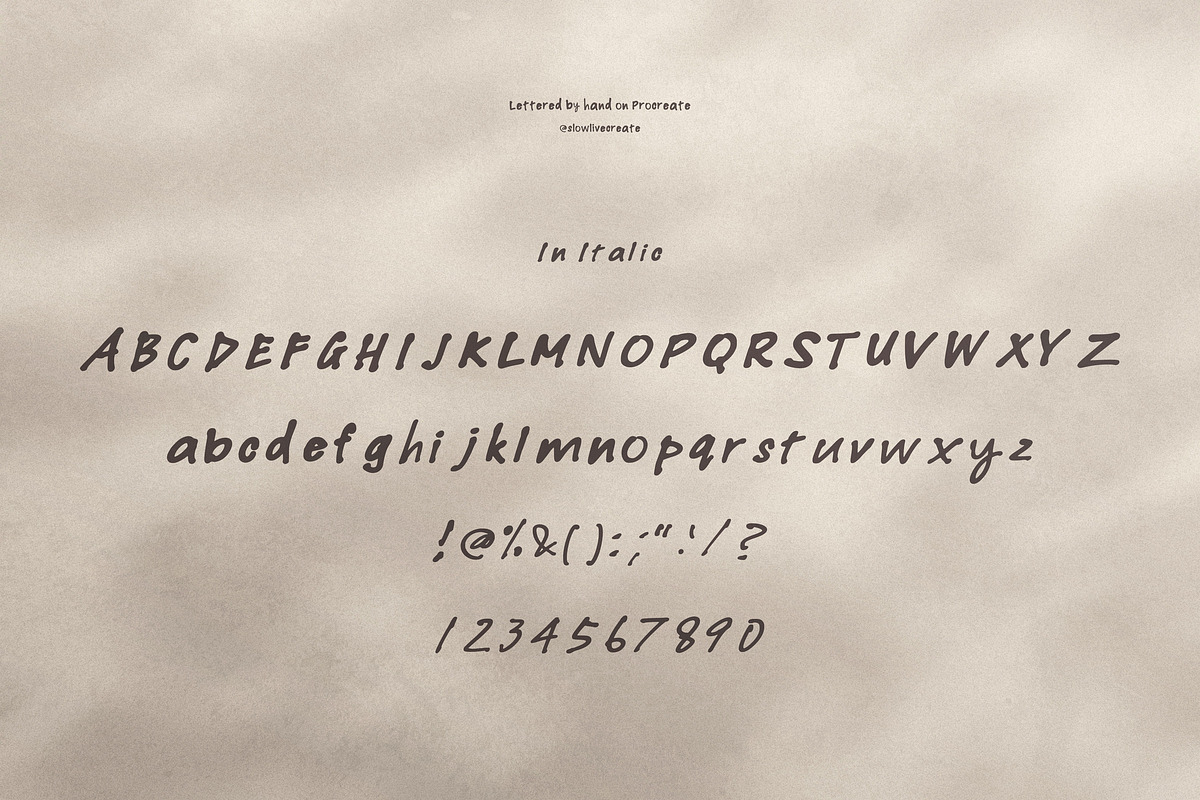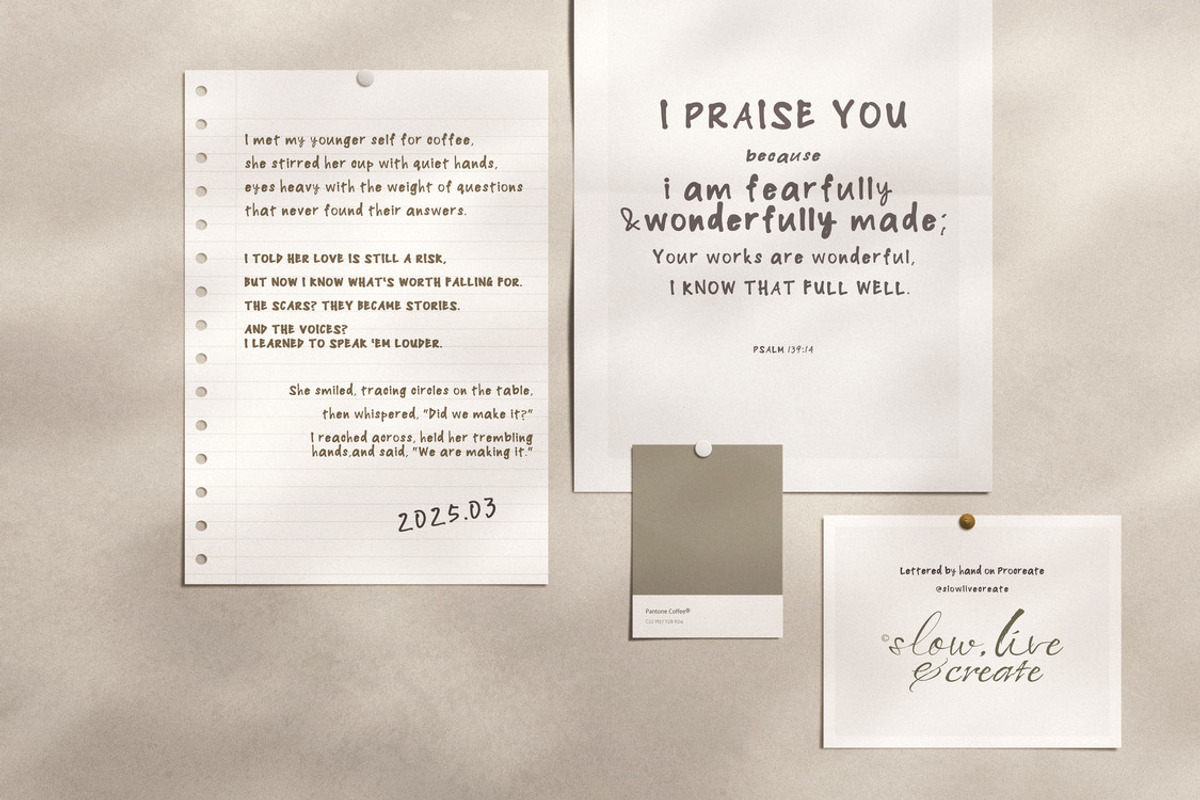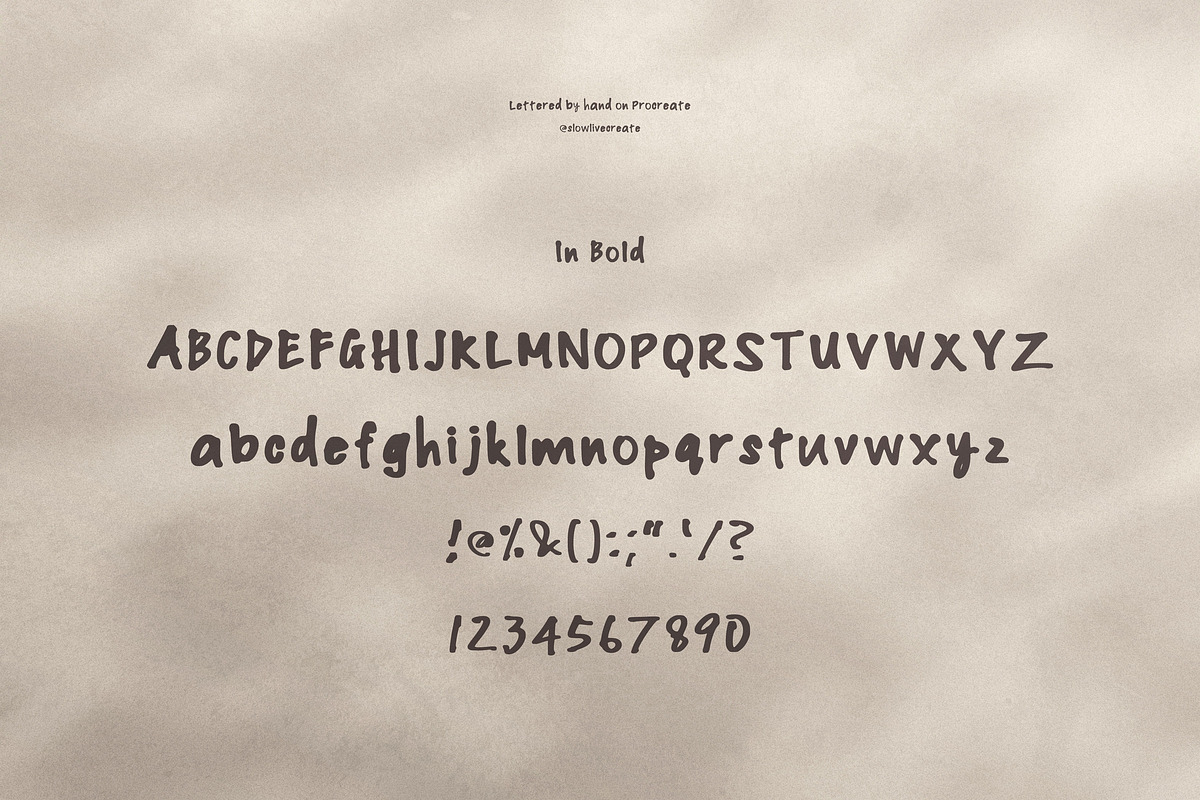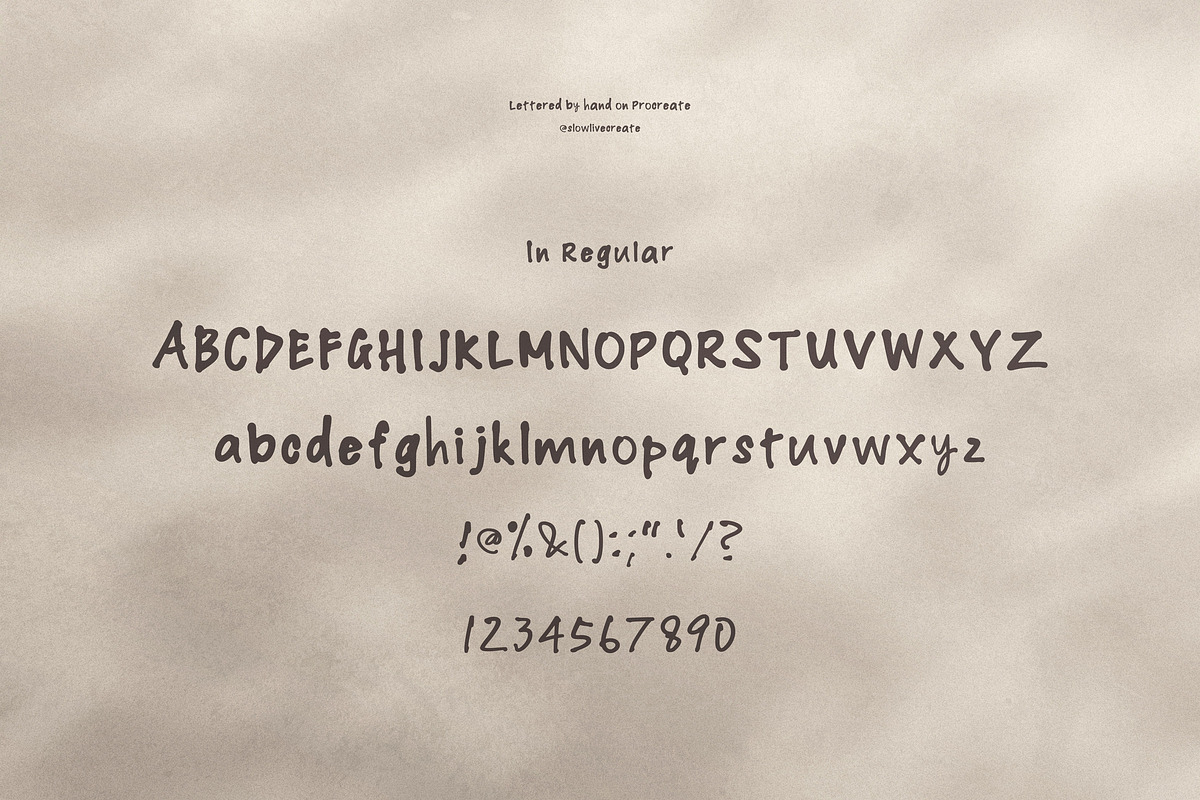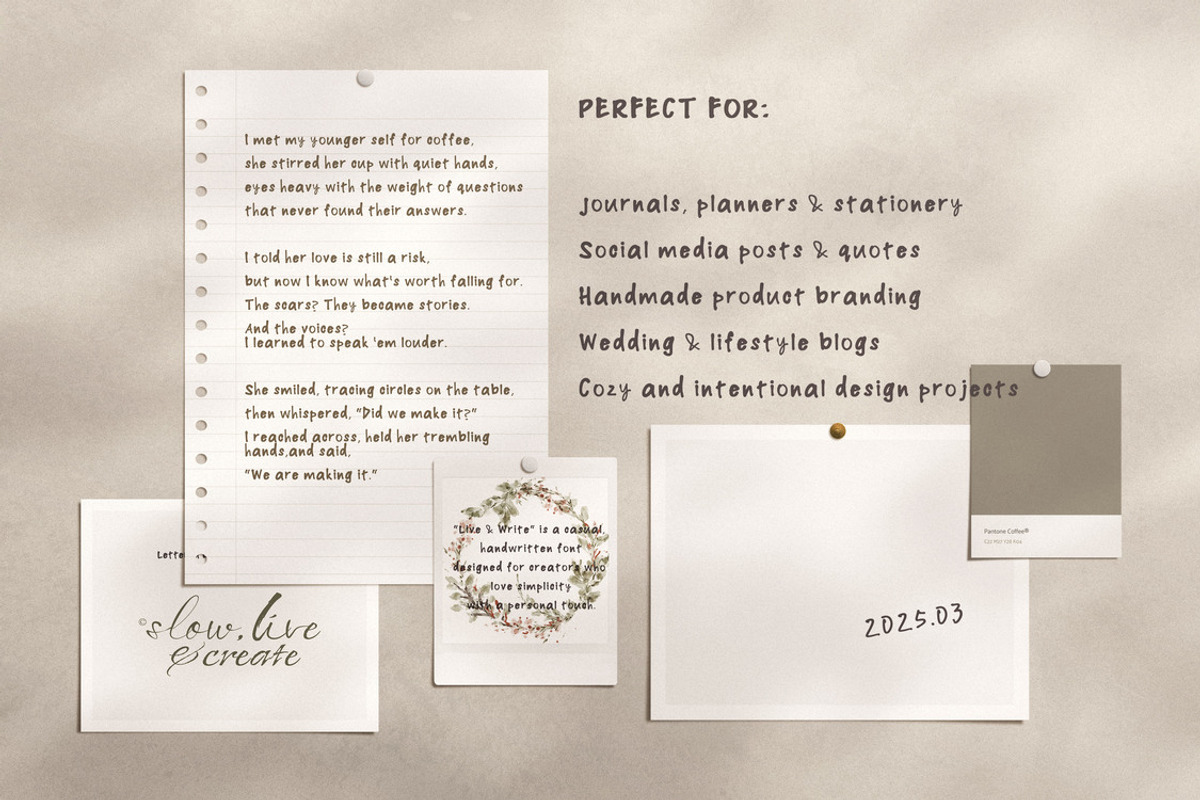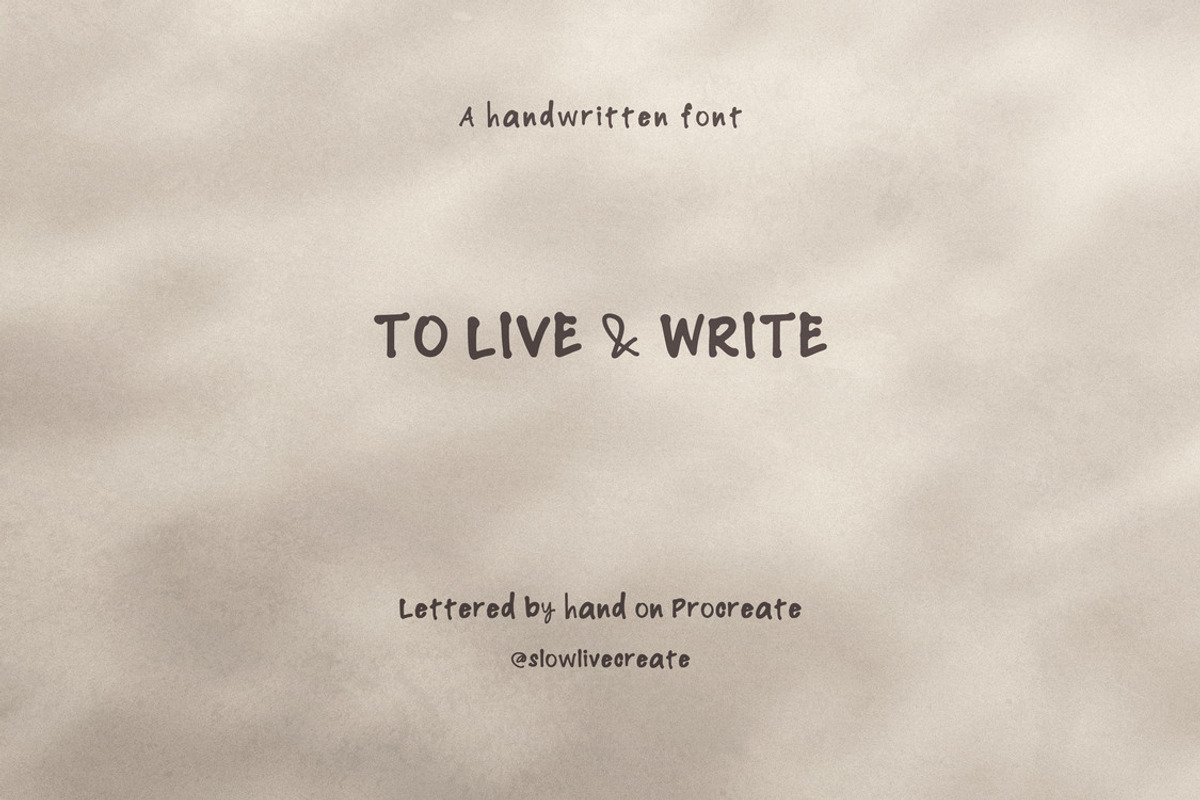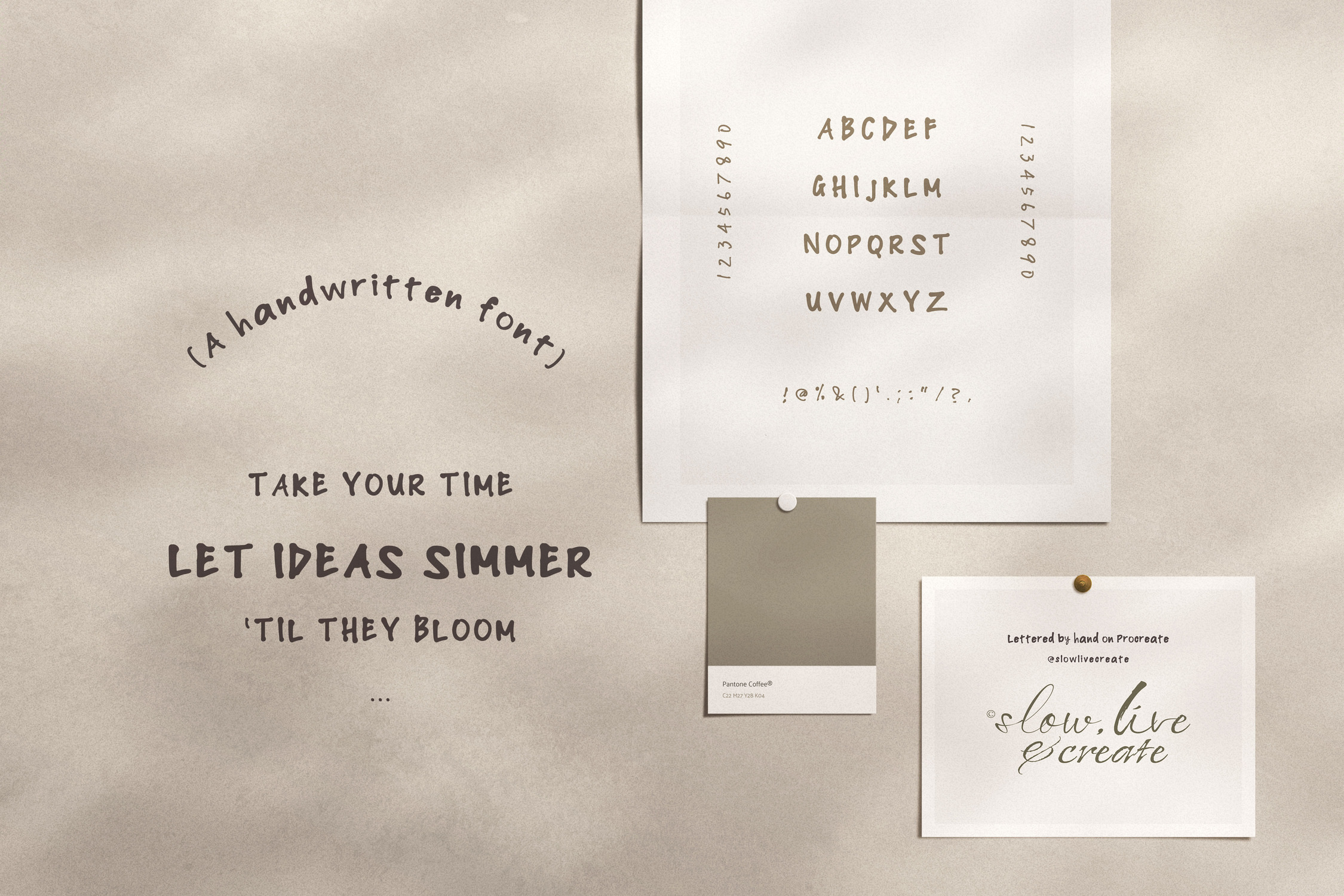
To Live and Write - Handwritten Font
Live & Write – A Minimal Handwritten Font ✨ About the Font: "Live & Write" is a casual, handwritten font designed for creators who love simplicity with a personal touch. Its smooth strokes and effortless flow make it perfect for journaling aesthetics, branding, social media graphics, and minimalist design projects. Inspired by the philosophy of slow living, this font embraces unhurried creativity and authentic self-expression.
- Journals, planners & stationery
- Social media posts & quotes
- Handmade product branding
- Wedding & lifestyle blogs
- Cozy and intentional design projects
Why You'll Love It ✔ Clean and natural stroke variations ✔ Modern yet warm handwriting style ✔ Easy to pair with other fonts ✔ Ideal for branding and lifestyle creatives